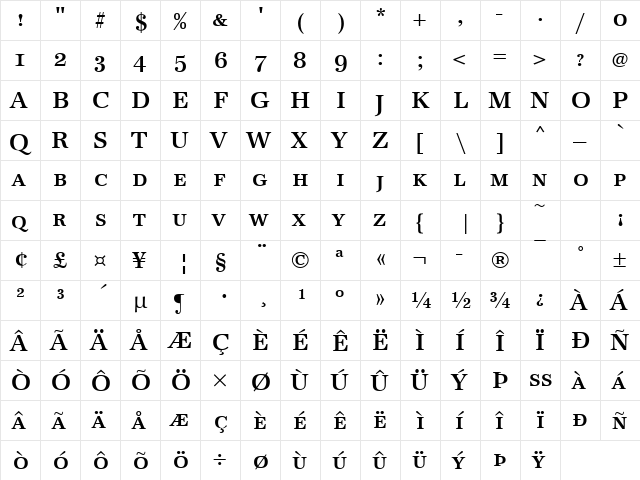
Becker Antiqua Caps Med Regular
Design Context for Becker Antiqua Caps Med Typeface
Becker Antiqua Caps Med takes a measured approach to typography — its balanced proportions and neutral character make it a reliable workhorse for both digital and print work.